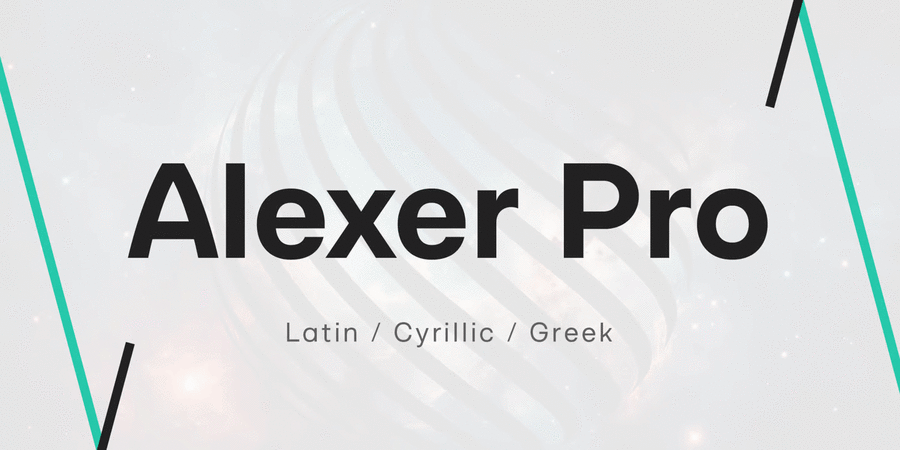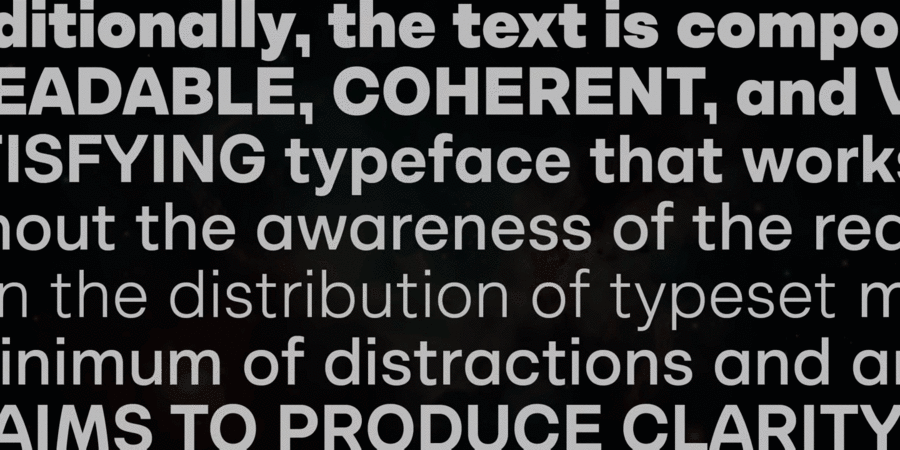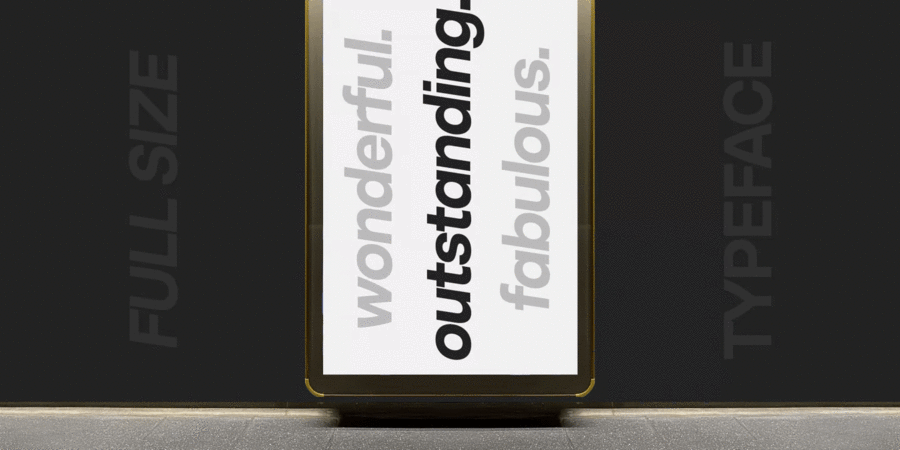
Alexer Pro is a modern font family based on Alexer typeface. Language support: Latin (including Vietnamese), Cyrillic, and Greek. It comes in 12 weights, 6 uprights, and matching italics. Each weight includes 1300 glyphs, alternates (G, I, t), and OpenType features. This family is ideally suited for packaging, headlines, advertising, and corporate identities. Perfectly for web, signage, and editorial design.
The typeface was designed by Mykola Savchuk in 2022.